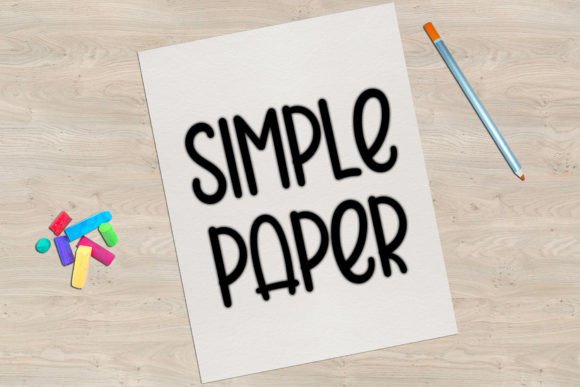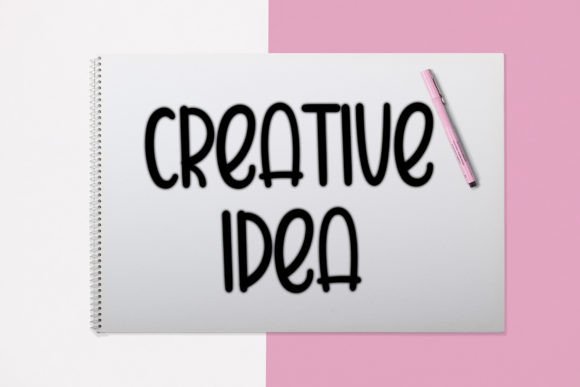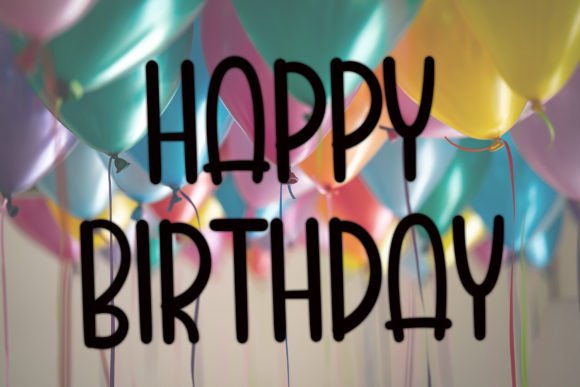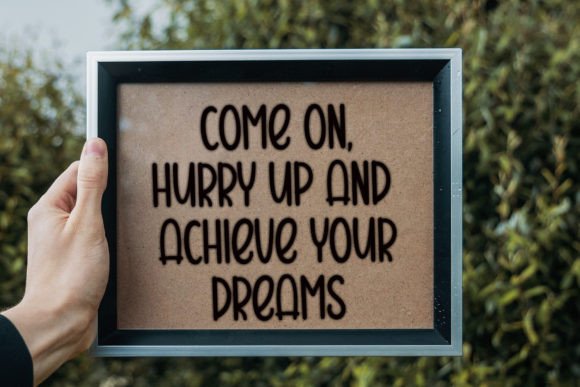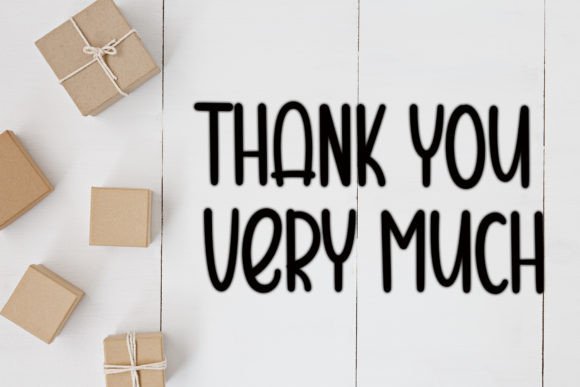
The Graduation Font: A Timeless Elegance for Your Designs
As a designer, I’ve had my fair share of moments where I struggled to find the perfect font for a project. But one font that has left a lasting impression on me is the Graduation font. Its elegant and timeless style has won my heart, and I’m excited to share my experience with you.
A Design Moment: When Fonts Matter
I recall working on a project for a client’s wedding invitation. The theme was classic and sophisticated, and I needed a font that would complement the design without overpowering it. After hours of searching, I stumbled upon the Graduation font, and it was love at first sight! ✨ The font’s unique, handwritten style with a touch of elegance perfectly captured the essence of the occasion.
An Honest Review: The Good and the Quirks
- ✅ The font’s incredibly distinct and timeless style makes it perfect for a wide range of projects.
- ✨ The elegant, handwritten feel adds a touch of sophistication to any design.
- 🌈 The font’s versatility allows it to work well with various design styles, from classic to modern.
While the Graduation font is exceptional, there are a few minor quirks to be aware of: 🤔
- ⚠️ Some characters may not work well in all sizes, so it’s essential to test the font before finalizing your design.
- ⚠️ The font may not be suitable for very formal or corporate designs, as it has a more personal, handwritten feel.
- Experiment with OpenType features, such as ligatures and stylistic alternates, to add more flair to your design.
- Explore the font’s glyphs and OpenType features to add more variety to your design.
The Designer Inspiration Behind Graduation Font
The Graduation font was inspired by the beauty of handwritten scripts and the elegance of traditional calligraphy. The designer aimed to create a font that would capture the essence of a bygone era while still feeling modern and fresh.
Q: What type of projects is the Graduation font best suited for?
A: The Graduation font is versatile and can be used for a wide range of projects, including wedding invitations, greeting cards, posters, and more.
Q: Is the Graduation font suitable for digital use?
A: Yes, the Graduation font is optimized for digital use and can be used for various digital projects, including social media graphics and website designs.